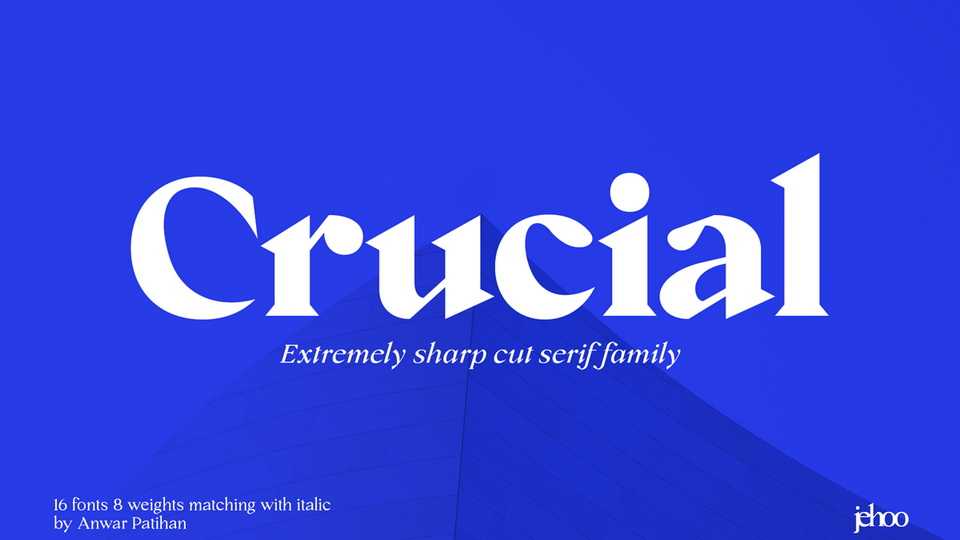
Download Crucial font, a bold and sharp serif typeface that has a pointed tip so that each piece of character gives a bold and elegant impression. Crucial font is suitable for strong-spirited designs as well as for a more striking and classy editorial look.
Designer: Jehoo Creative